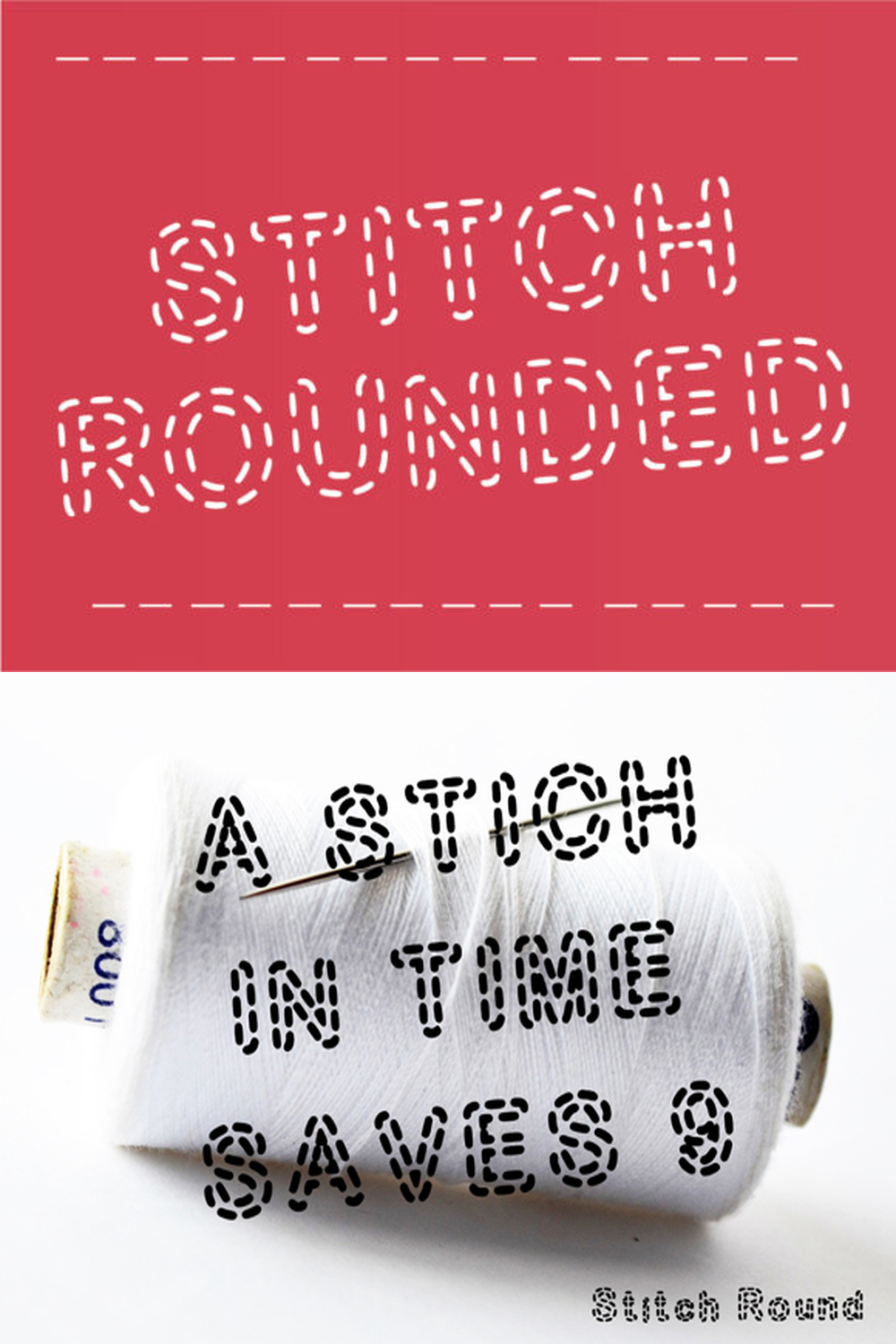
Stitch Rounded Font
About the Stitch Rounded Font
Discover the charm of Stitch Rounded Font. This font is a perfect blend of modern aesthetics and classic appeal. Stitched font with rounded edges. For a causal craft look in upper and lowercase with numbers.